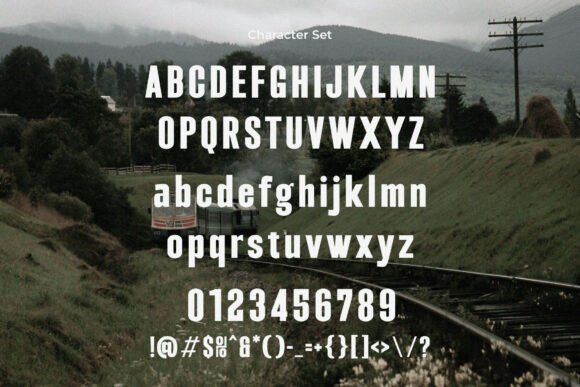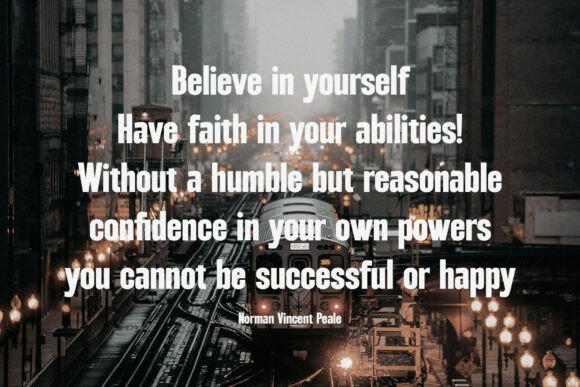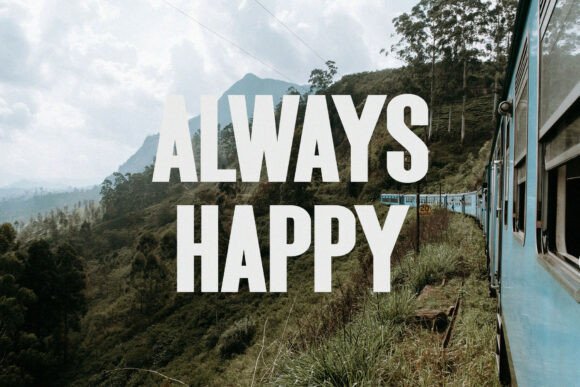
Ghalling Font: Elevate Your Designs with a Bold and Assertive Sans Serif
In the world of typography, a font can make or break a design. A well-chosen font can elevate your creation, conveying your message with clarity and style. If you’re a designer or crafter looking to add a bold and assertive touch to your work, look no further than the Ghalling font. This sans serif font is an incredible asset to any font library, capable of elevating any creation with its unique character.
The Characteristics of Ghalling Font
Ghalling is a bold and assertive sans serif font, designed to make a statement. Its clean lines and geometric shapes give it a modern and sleek appearance, perfect for a wide range of applications. Whether you’re working on a logo, brochure, or website, Ghalling is versatile enough to adapt to any design style. Its bold nature ensures that your message will be heard loud and clear, cutting through the noise and grabbing the attention of your audience.
Why Choose Ghalling Font?
So, what sets Ghalling apart from other fonts? Here are just a few reasons why designers and crafters are falling in love with this incredible font:
- Bold and Assertive: Ghalling is not a font that shy away from attention. Its bold and assertive nature makes it perfect for headlines, titles, and any other design element where you want to make a statement.
- Versatile: Whether you’re working on a digital project or a print design, Ghalling adapts seamlessly to any medium. Its clean lines and geometric shapes ensure that it will look great in any context.
- Easy to Read: Despite its bold nature, Ghalling is surprisingly easy to read. This makes it perfect for body text, as well as headlines and titles.
- Unique: In a sea of similar fonts, Ghalling stands out from the crowd. Its unique character and personality make it the perfect choice for designers looking to create something truly original.
How to Use Ghalling Font
Now that we’ve covered the characteristics and benefits of Ghalling, let’s talk about how to use it effectively in your designs. Here are a few tips to get you started:
- Pair it with a Serif Font: For a classic and timeless look, pair Ghalling with a serif font. This will add depth and contrast to your design, creating a visually appealing combination.
- Use it for Headlines: Ghalling is perfect for headlines and titles, where its bold and assertive nature can really shine. Use it to grab attention and draw the reader in.
- Experiment with Colors: Ghalling looks great in a wide range of colors, from bold and bright to subtle and muted. Experiment with different colors to find the perfect combination for your design.
| Author | Ariya Works Studio |
In conclusion, Ghalling font is an incredible asset to any font library. Its bold and assertive nature, combined with its versatility and ease of use, make it the perfect choice for designers and crafters looking to elevate their designs. Whether you’re working on a logo, brochure, or website, Ghalling is sure to make a statement. So why not give it a try and see the difference it can make in your designs?
Key Features of Ghalling Font
| Font Style | Bold and Assertive Sans Serif |
| Versatility | Suitable for a wide range of applications, including logos, brochures, and websites |
| Readability | Easily readable, even at small sizes |
| Uniqueness | Stand out from the crowd with its unique character and personality |